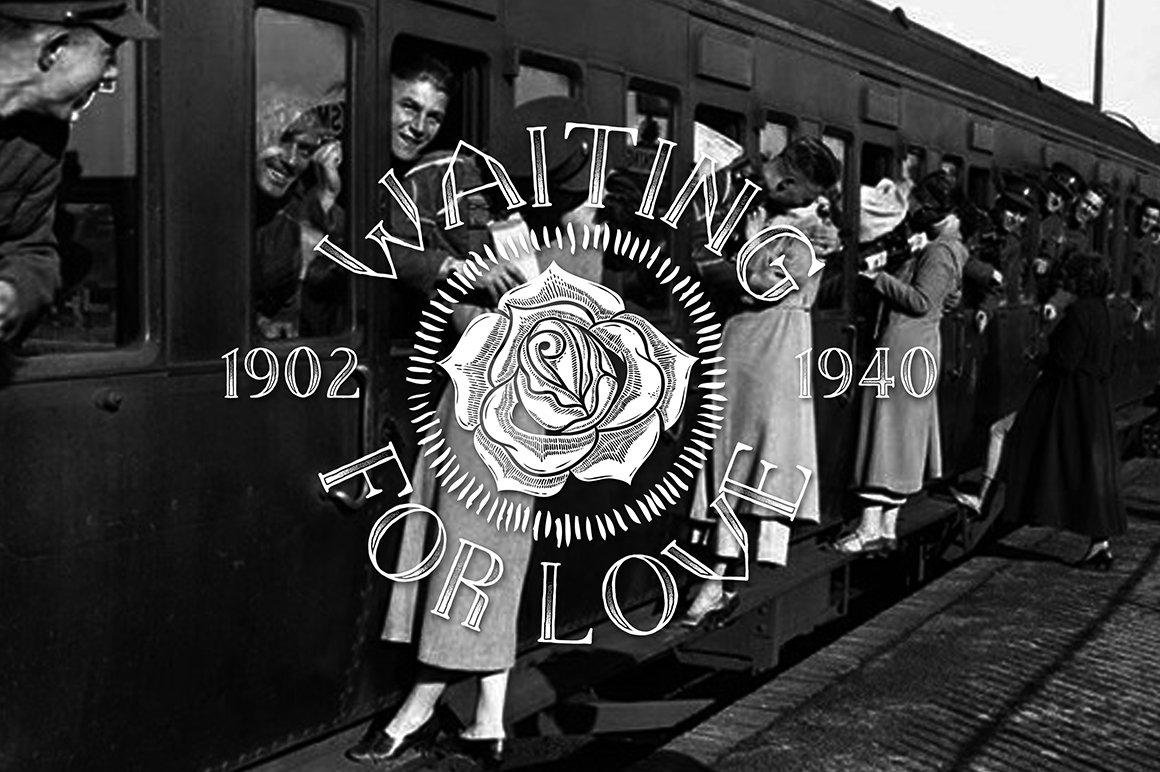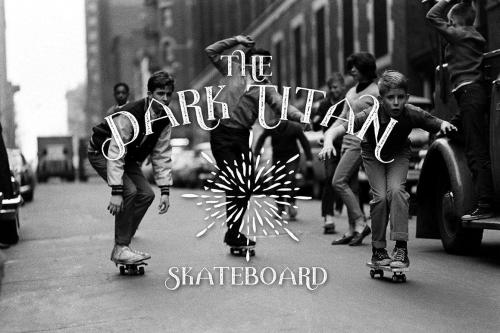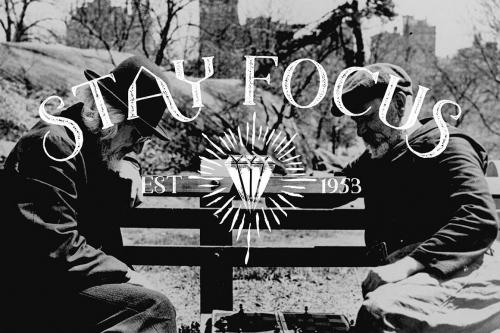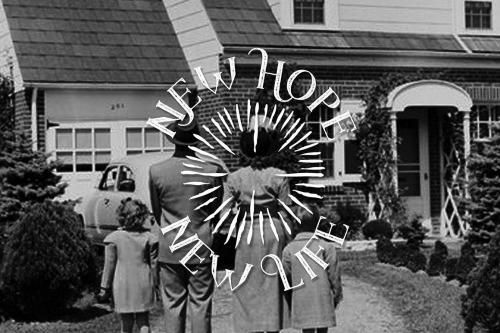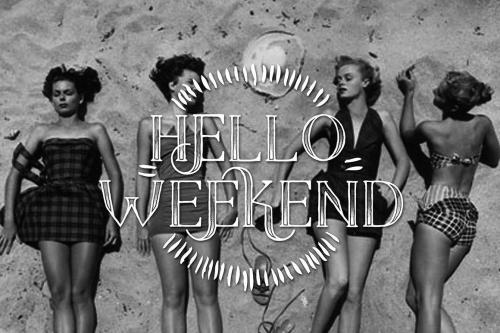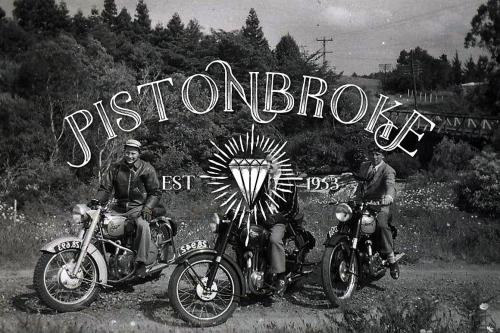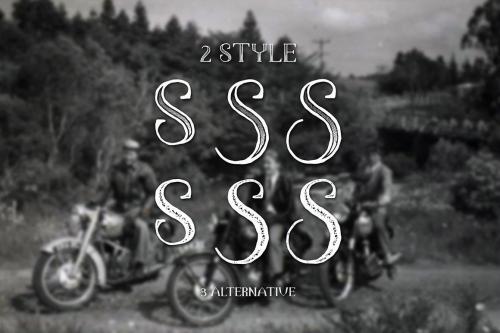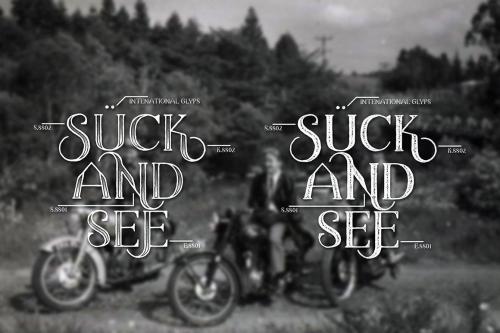
Hello I’m really excited to introduce The Dark Titan with two style vintage and classic a handwriting font with cool character! The Dark Titan perfect for poster design, book covers, merchandise, fashion campaigns, newsletters, branding, advertising, magazines, greeting cards, album covers, and quote designs and more.
- Designer: madeDeduk